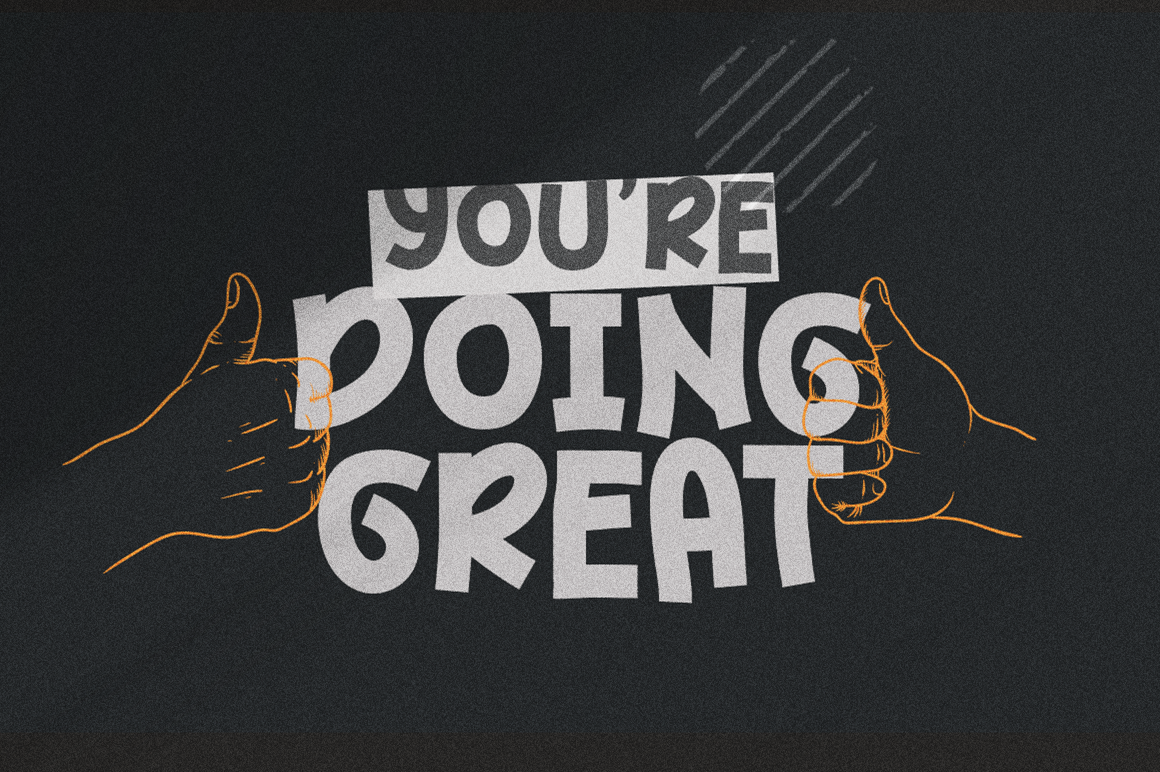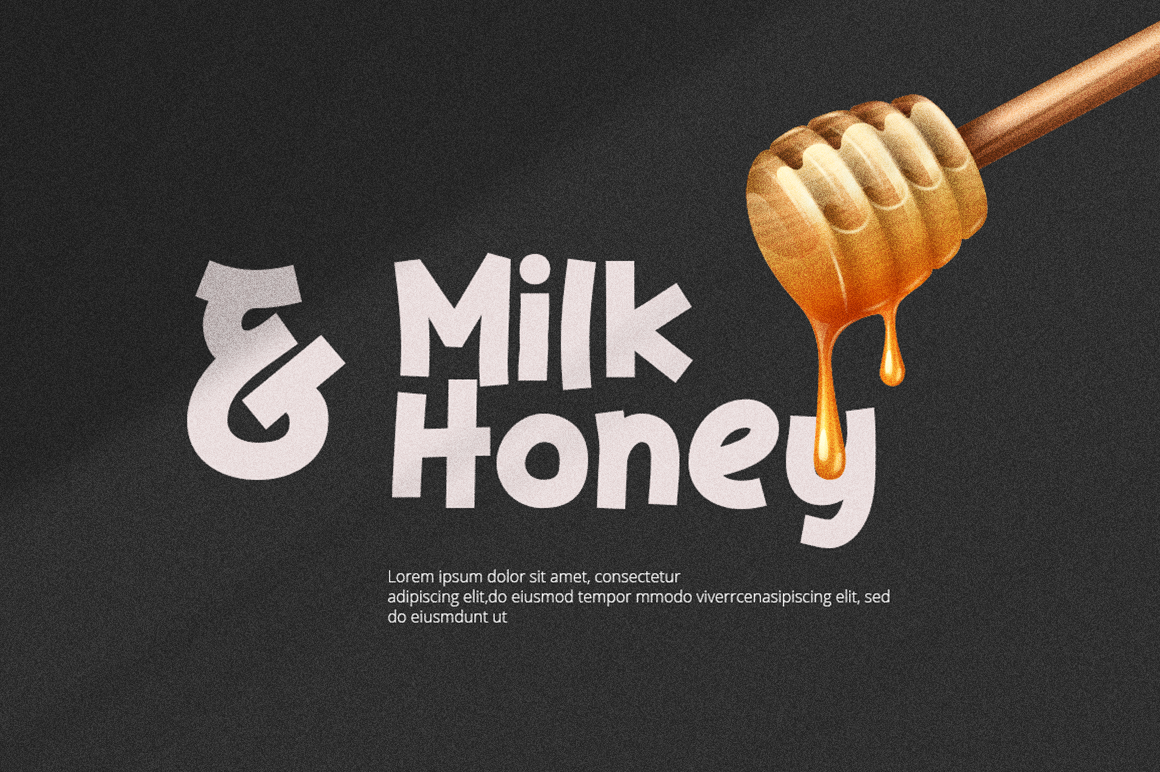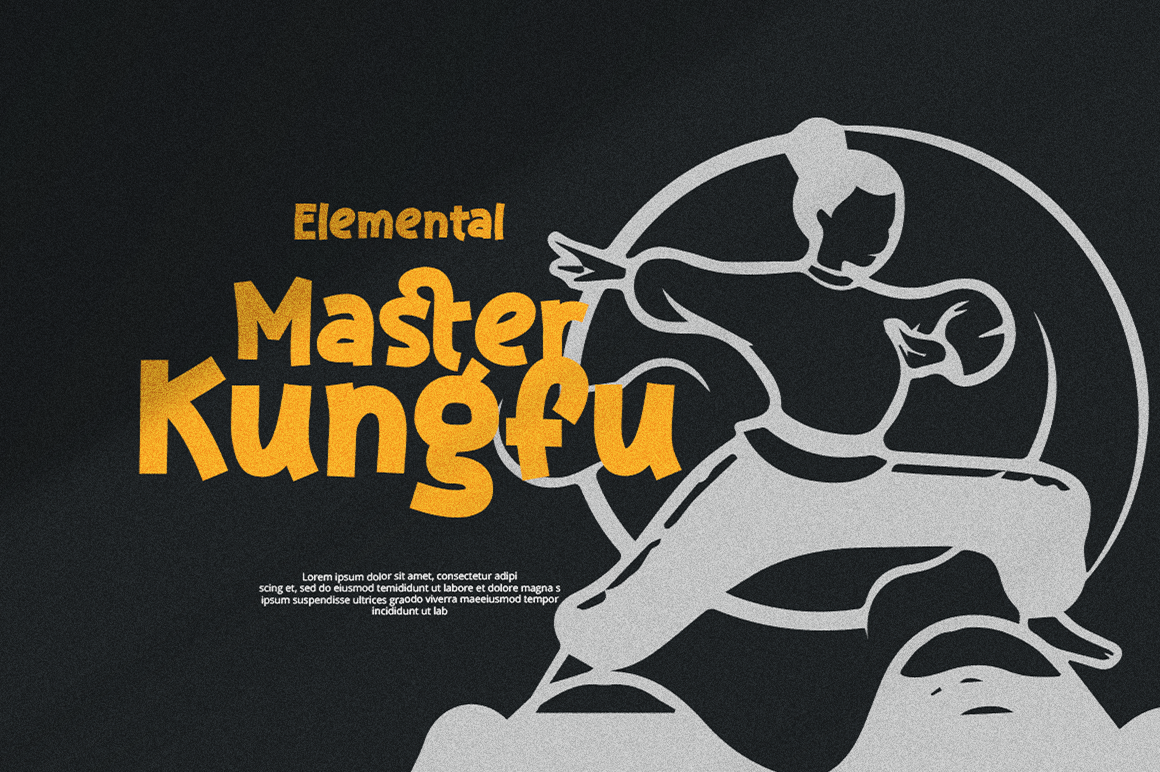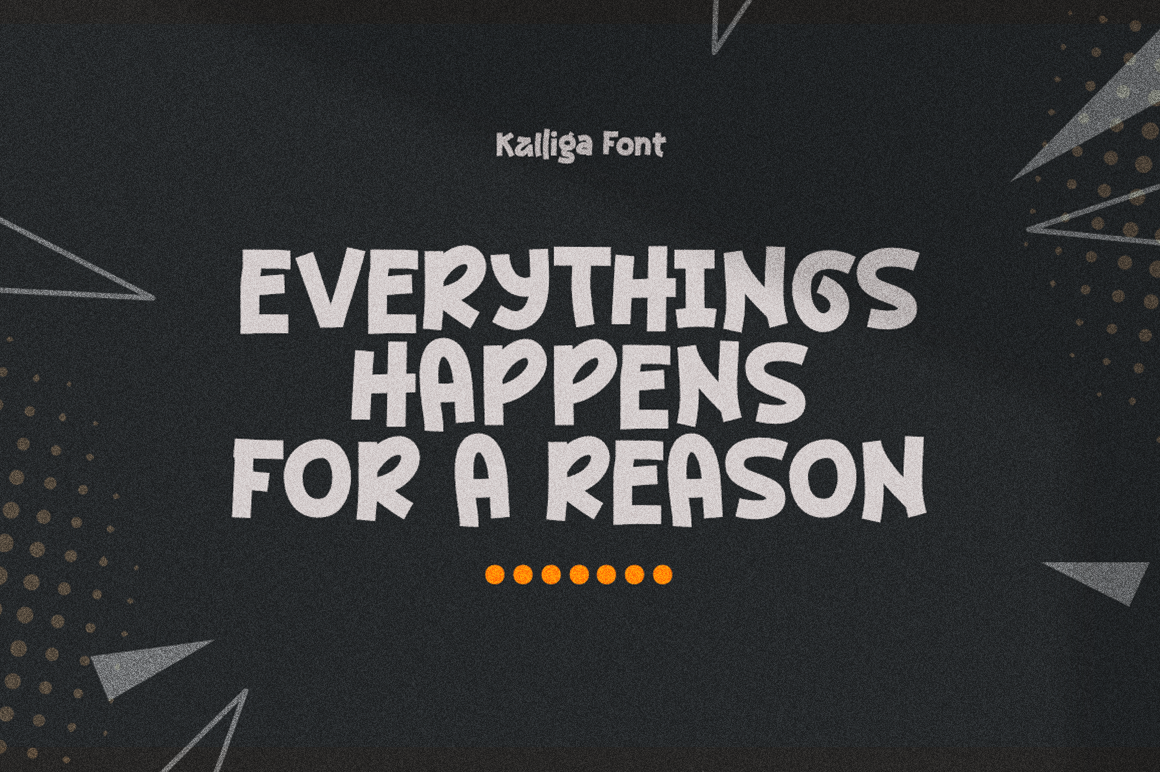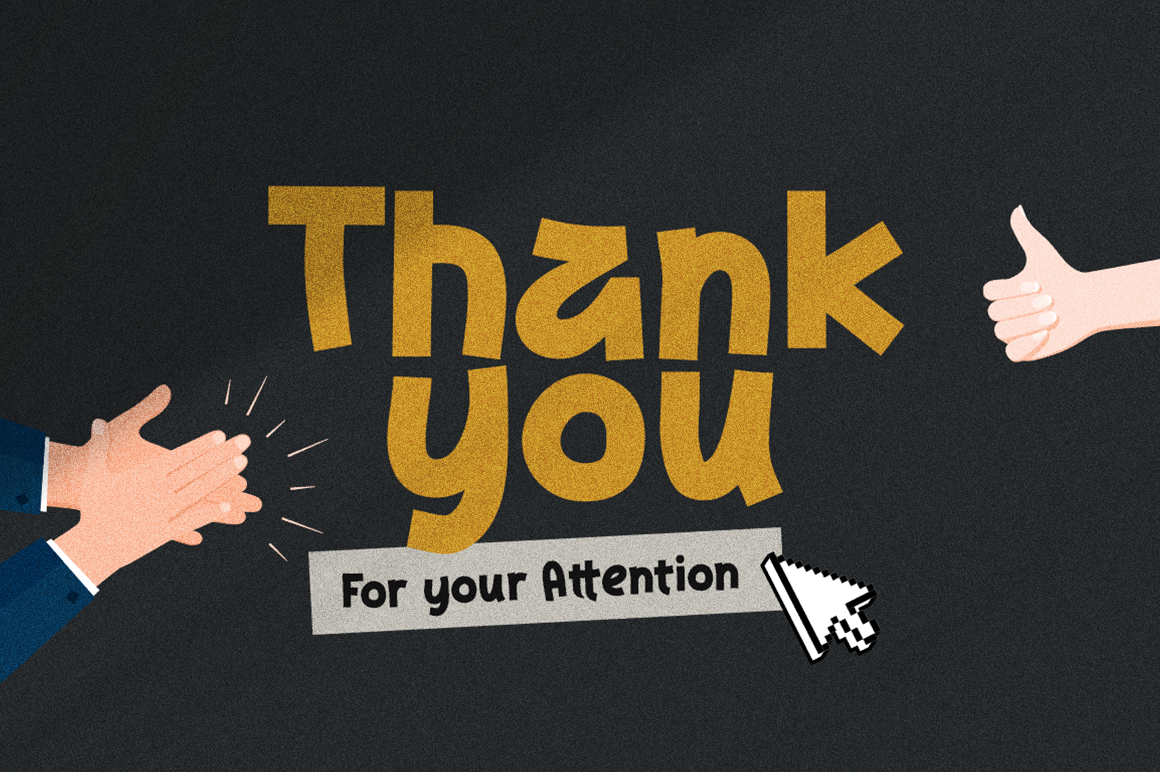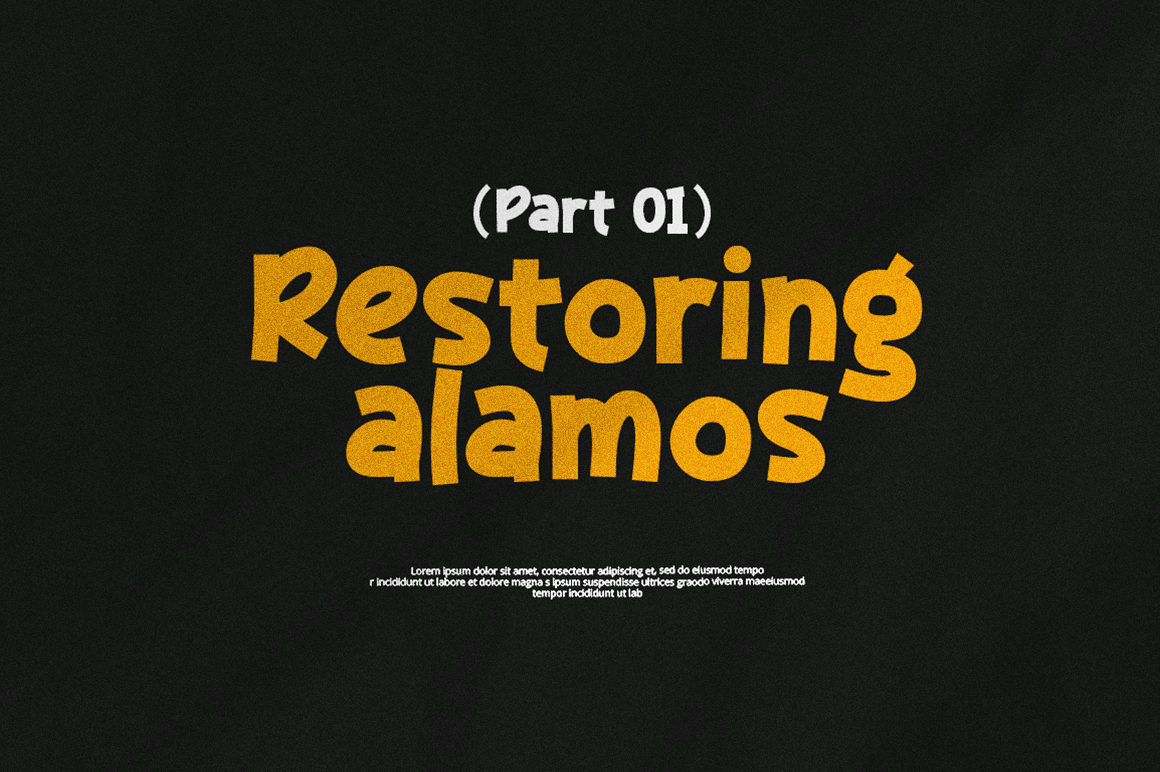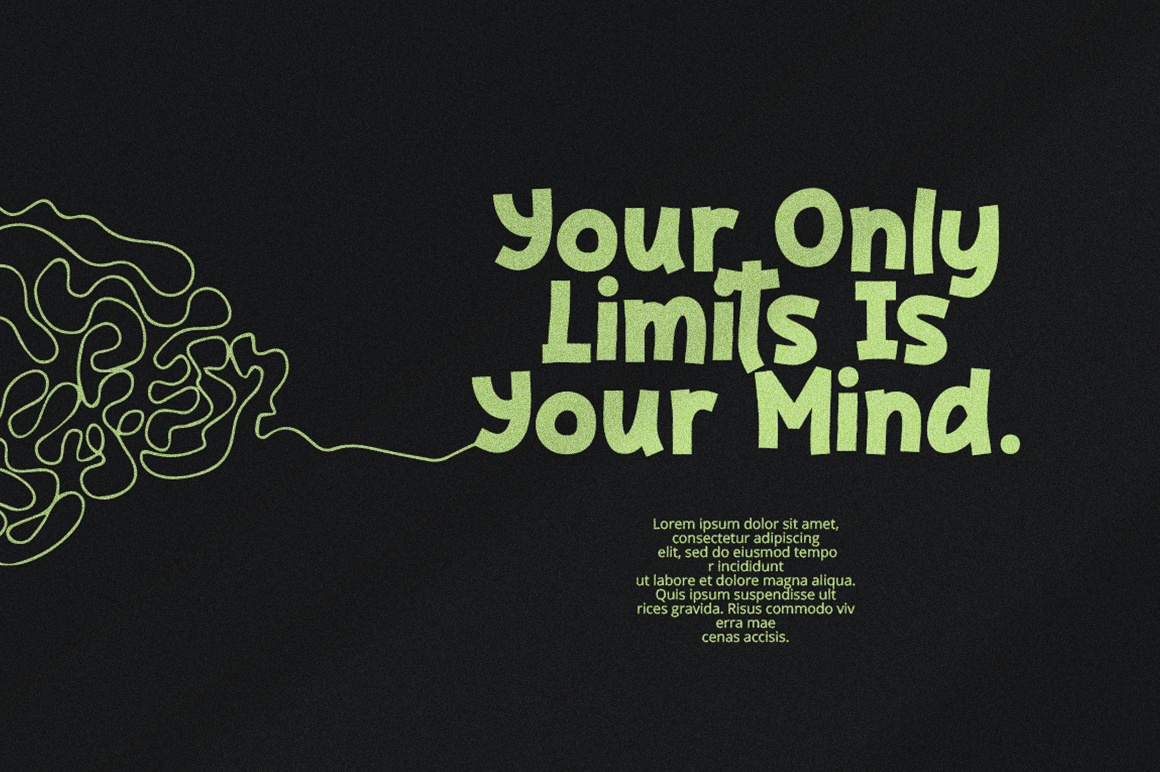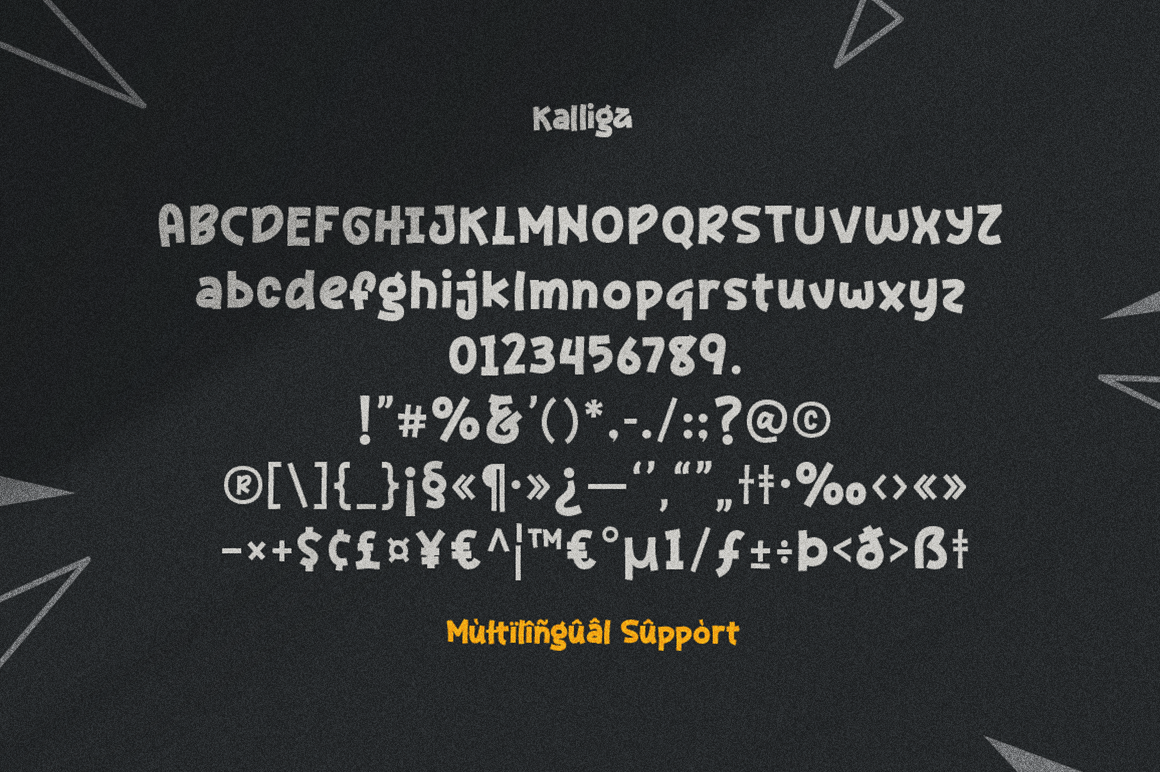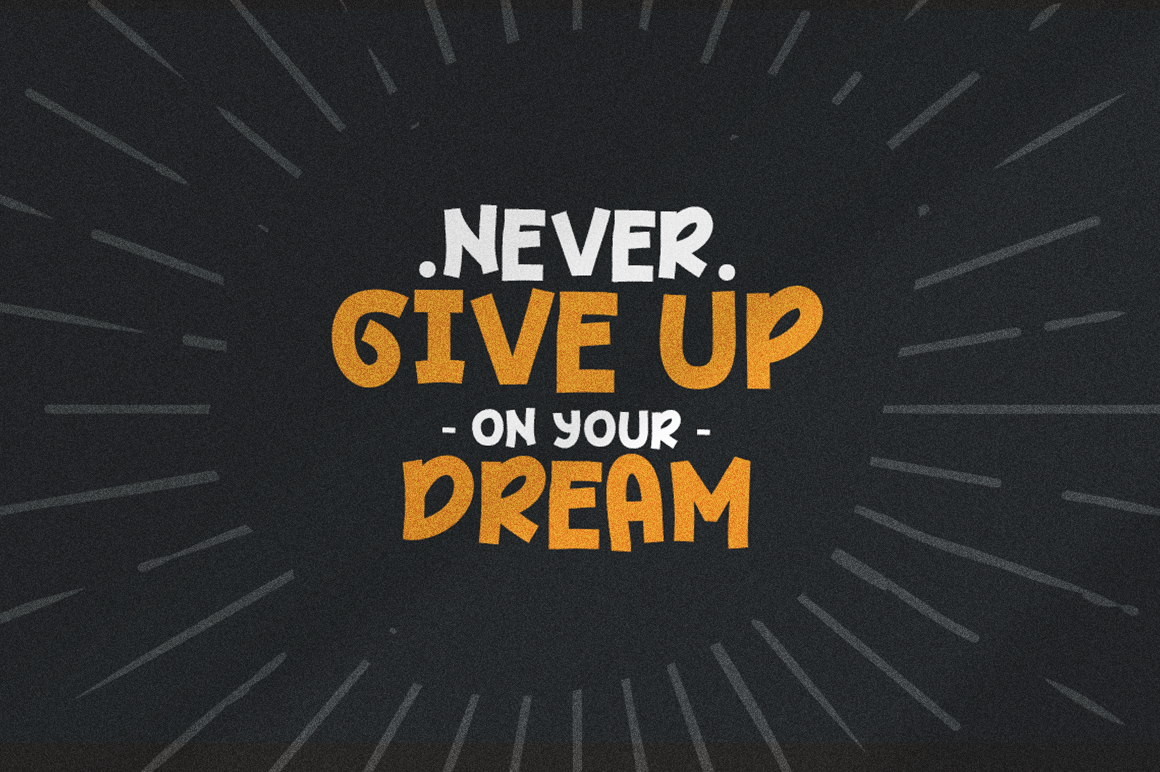
Kalliga - Bold Handwriting Font
Kalliga font embodies the essence of bold sophistication with its elegant handwriting style. Each stroke exudes confidence and grace, capturing attention with its refined presence. The boldness of the characters adds a distinct flair, making a statement while maintaining a sense of fluidity and ease. Whether used for headlines, invitations, or branding. Kalliga lends a touch of timeless charm and personality to any design project. With its graceful curves and impeccable craftsmanship, this font is sure to elevate any visual composition to new heights of elegance and style.
- Bold Handwriting
- Basic Latin Glyphs
- ligatures and Alternates
- Numeral and Punctuation
- Currencies